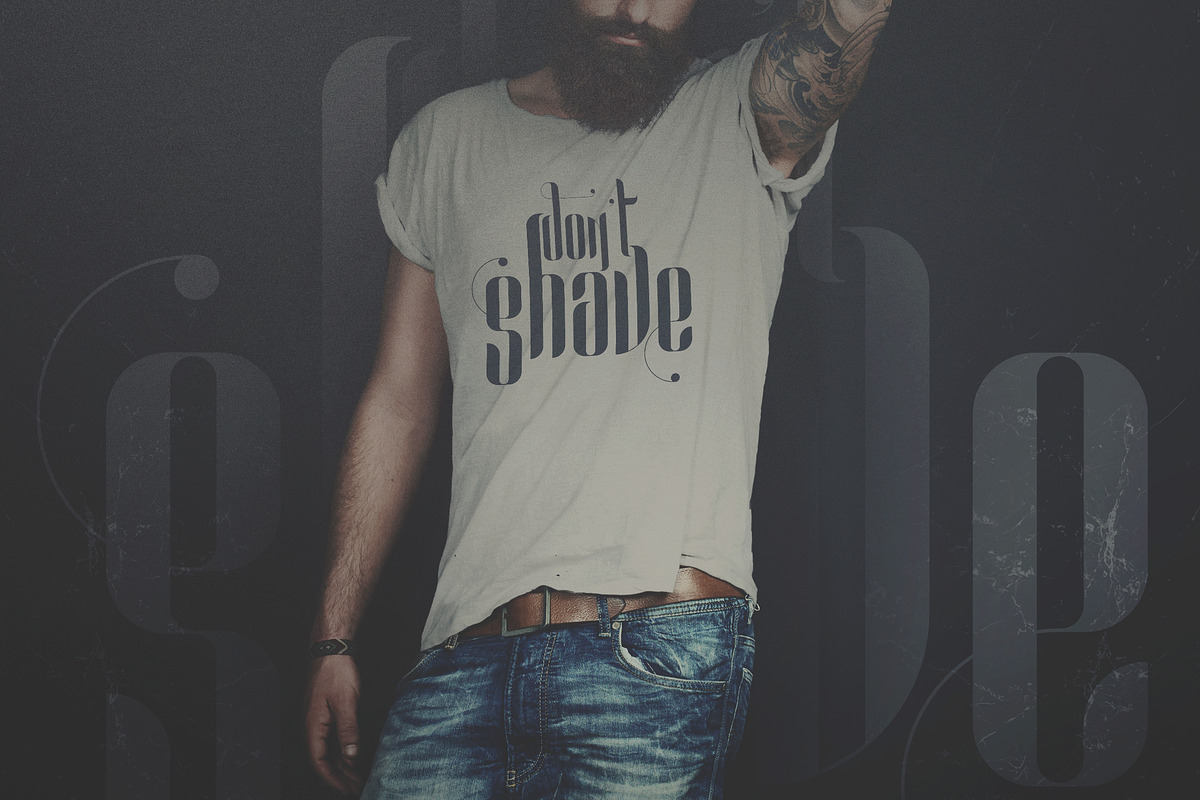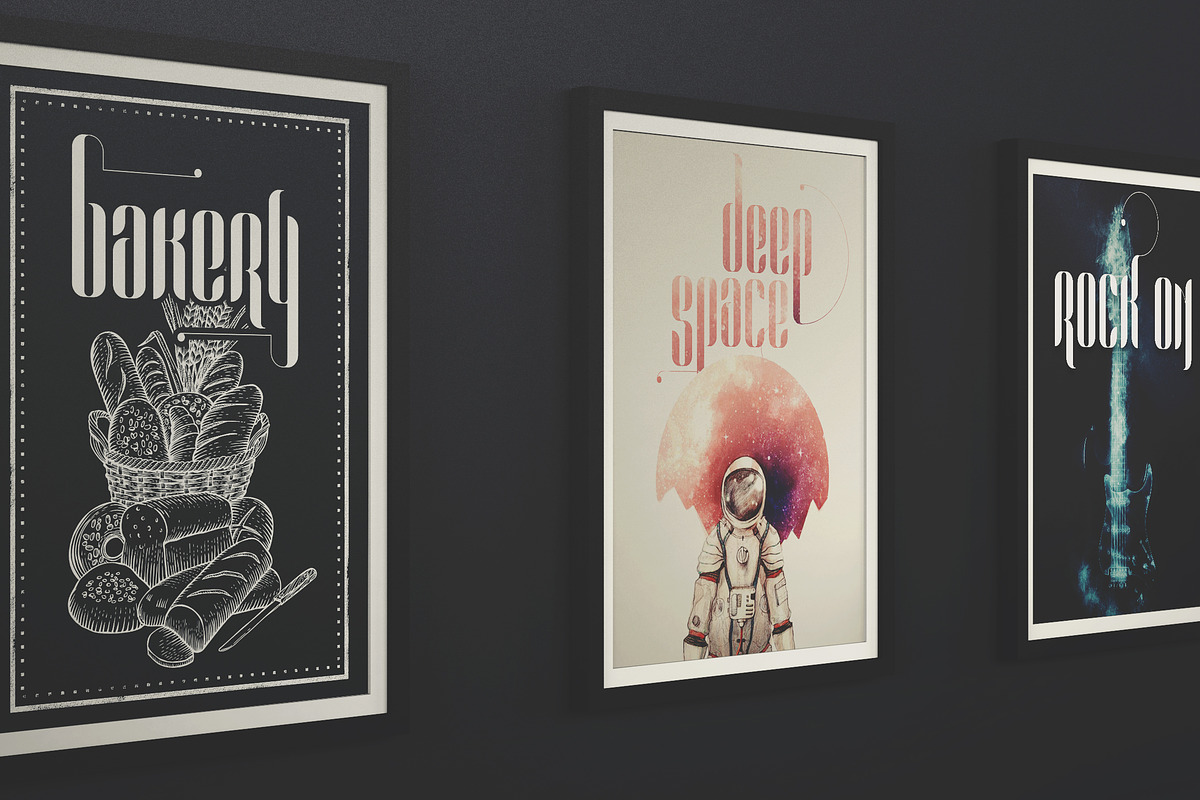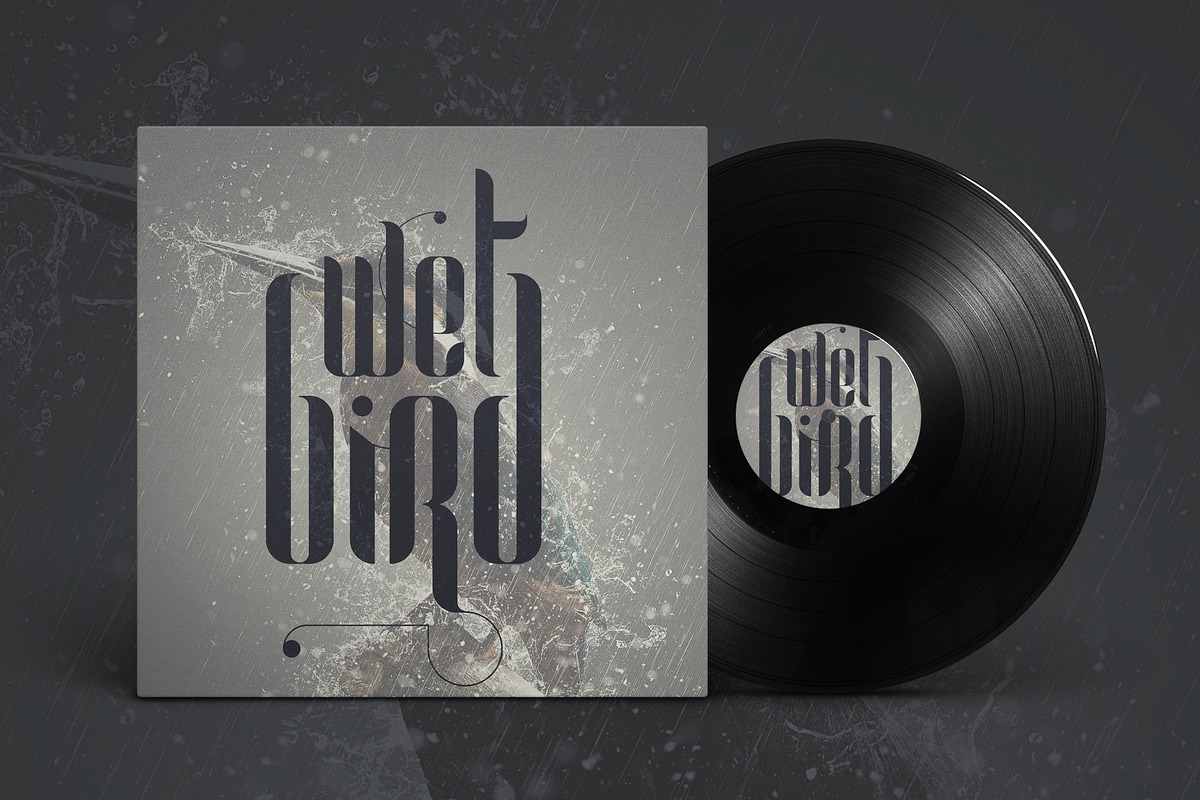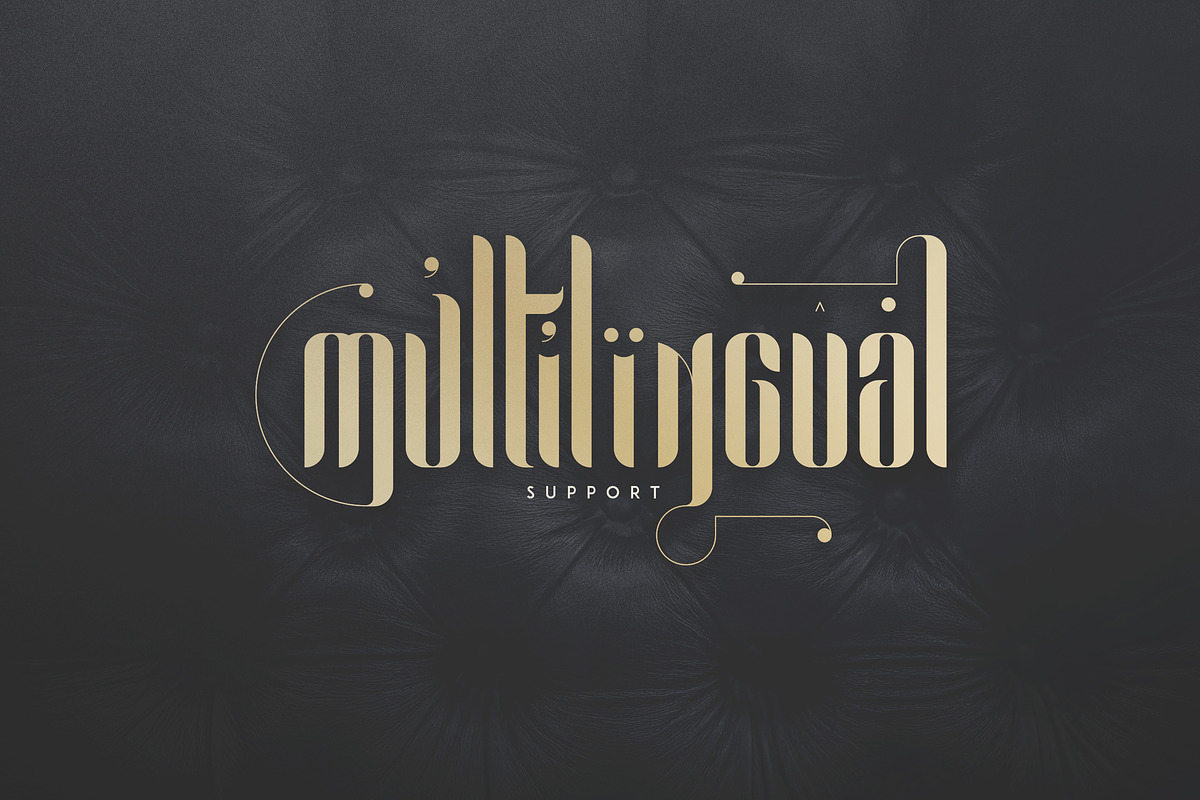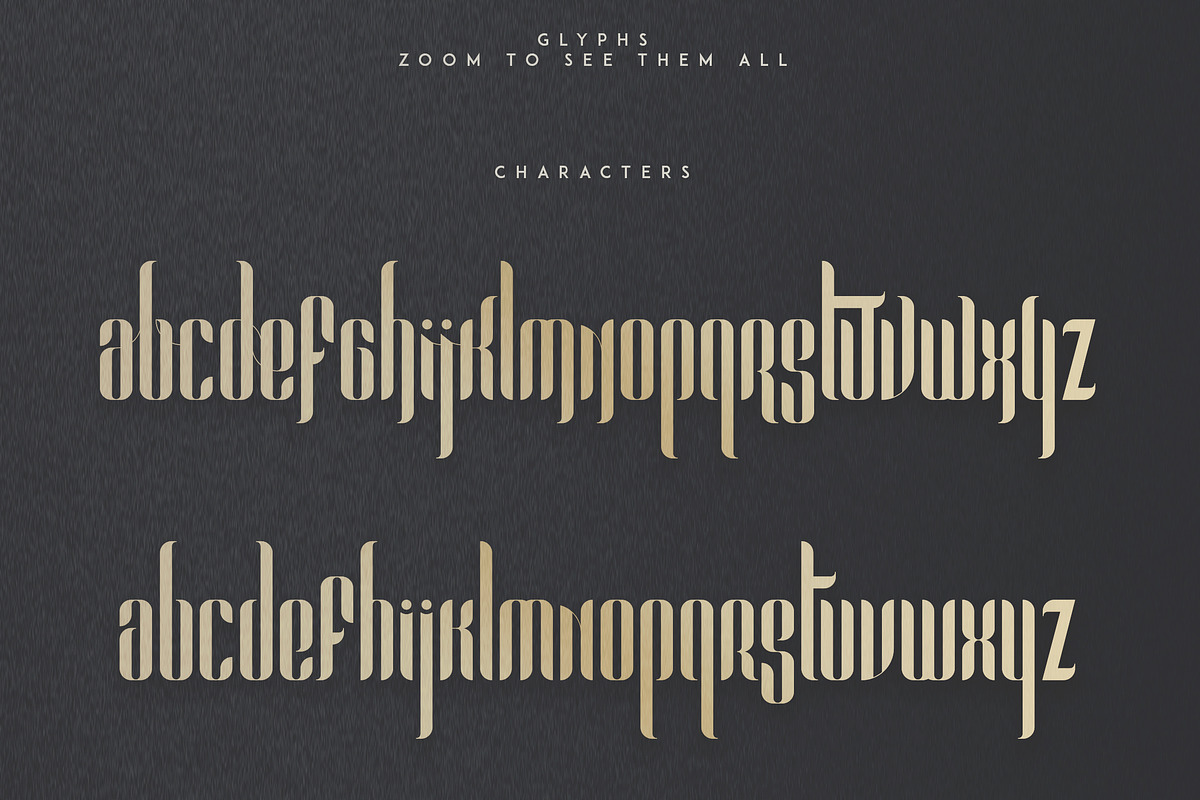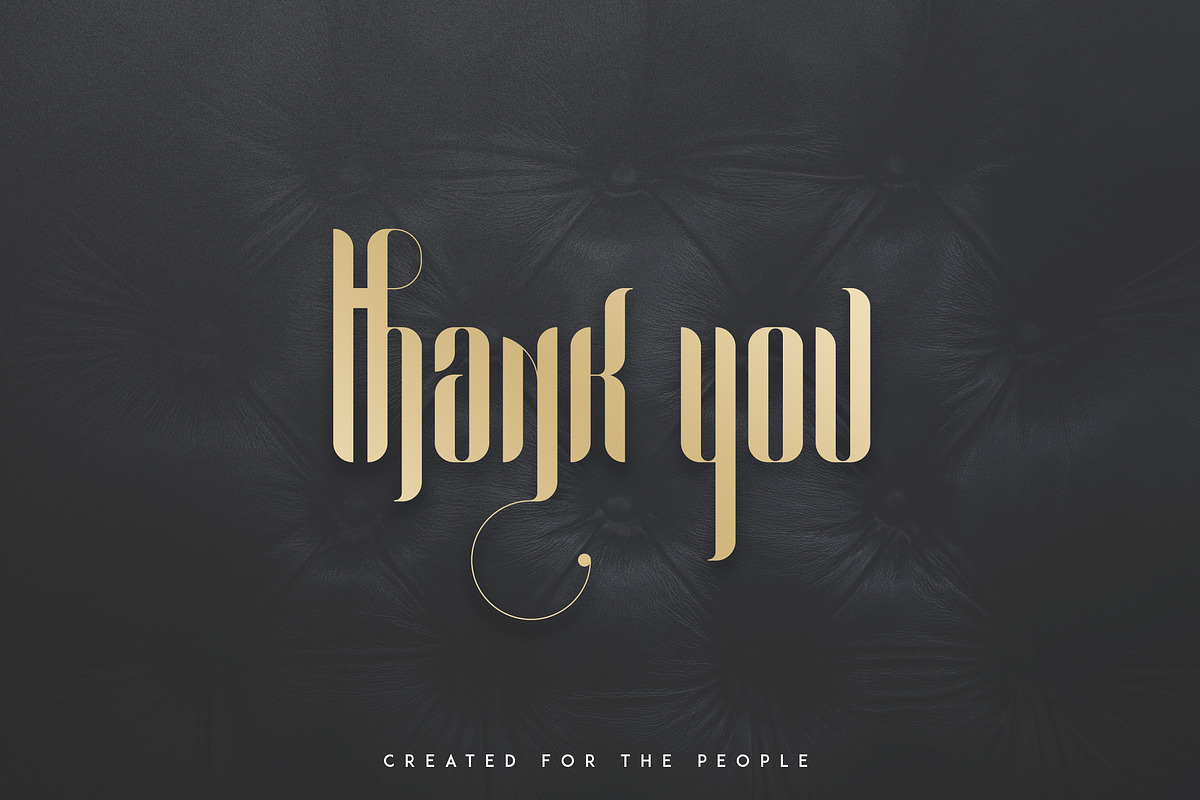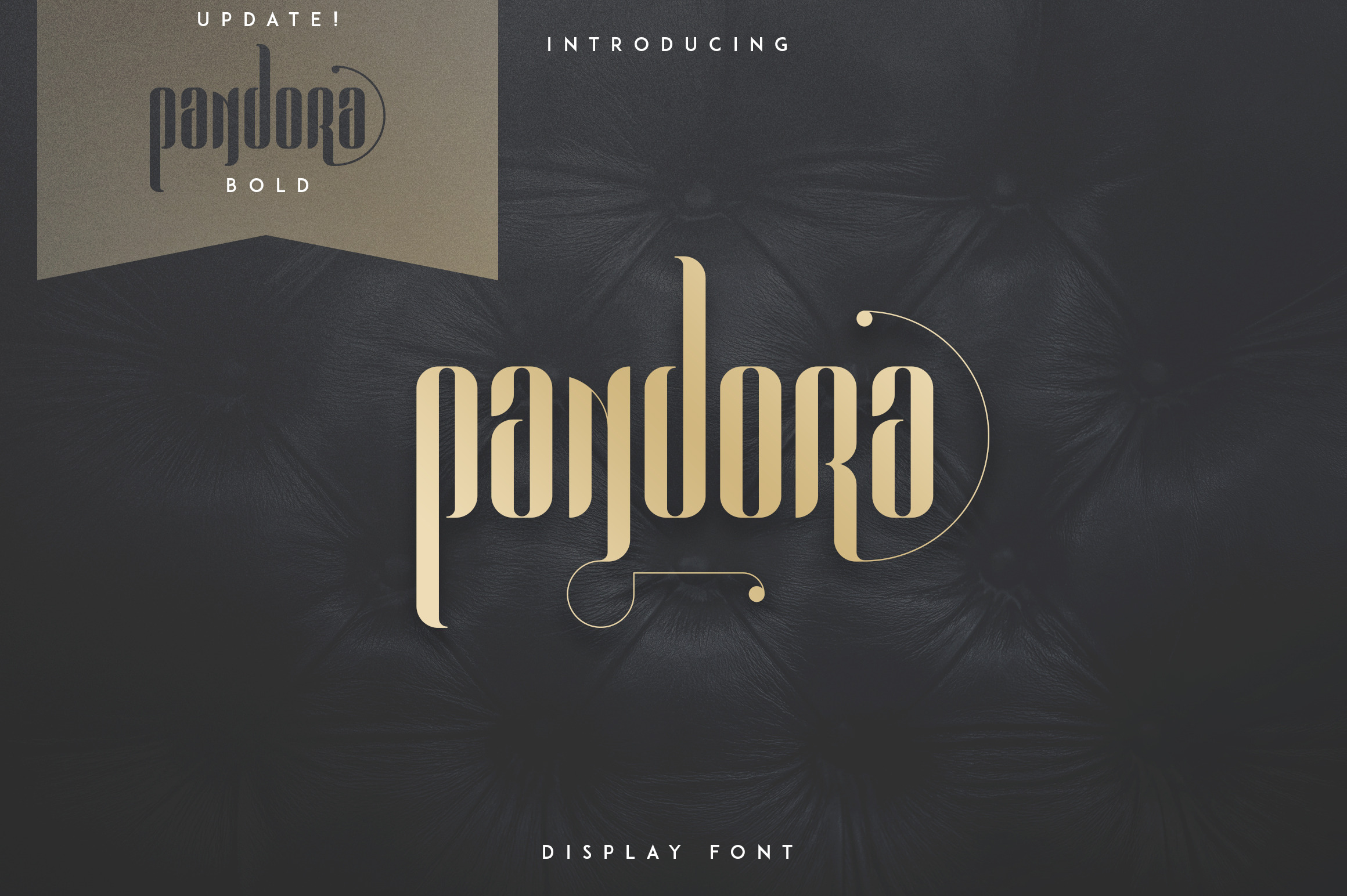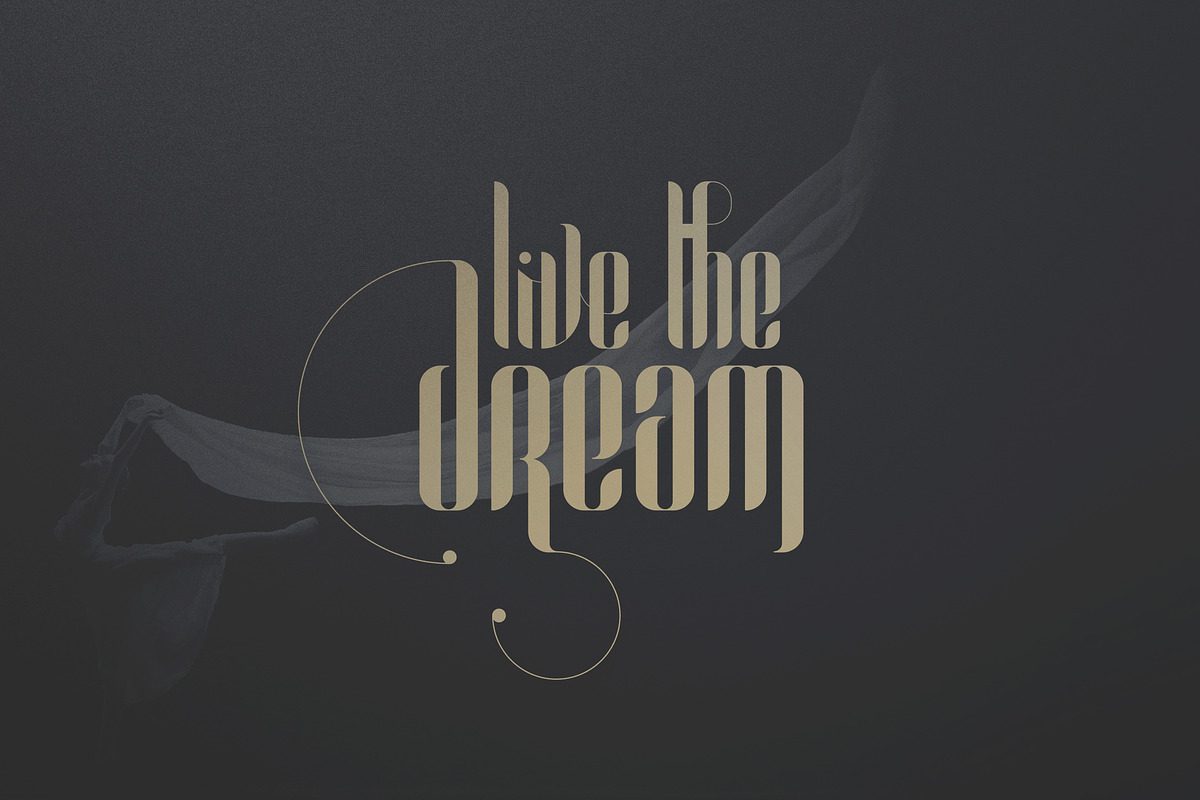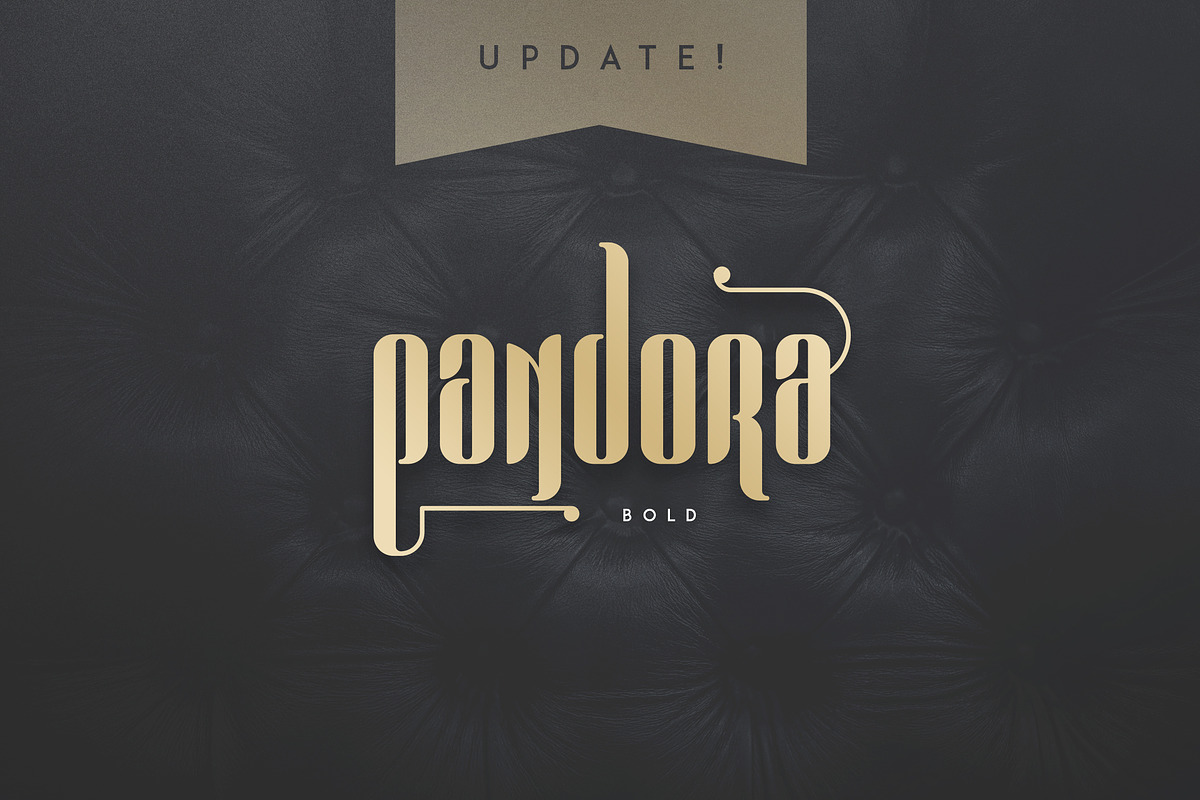
UPDATE - Pandora Bold is added :) Enjoy!
Pandora is modern display font with 82 alternative glyphs and multilingual support. It's a very versatile font that works great in large and small sizes.
Pandora is perfect for branding projects, home-ware designs, product packaging, wedding invitations, magazine headers - or simply as a stylish text overlay to any background image.
- Uppercase,lowercase,numeral,punctuation & Symbol
- 82 Alternative Glyphs